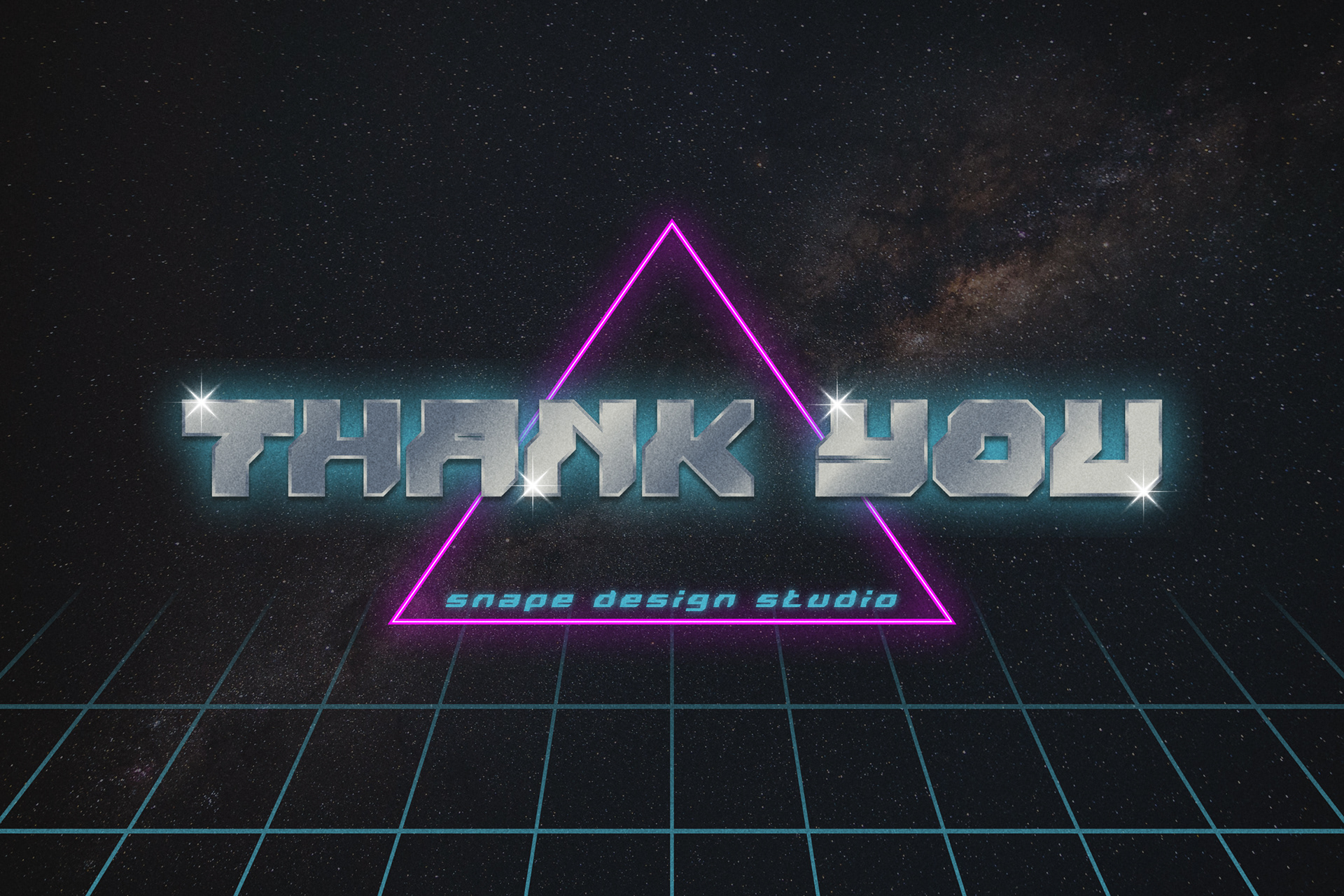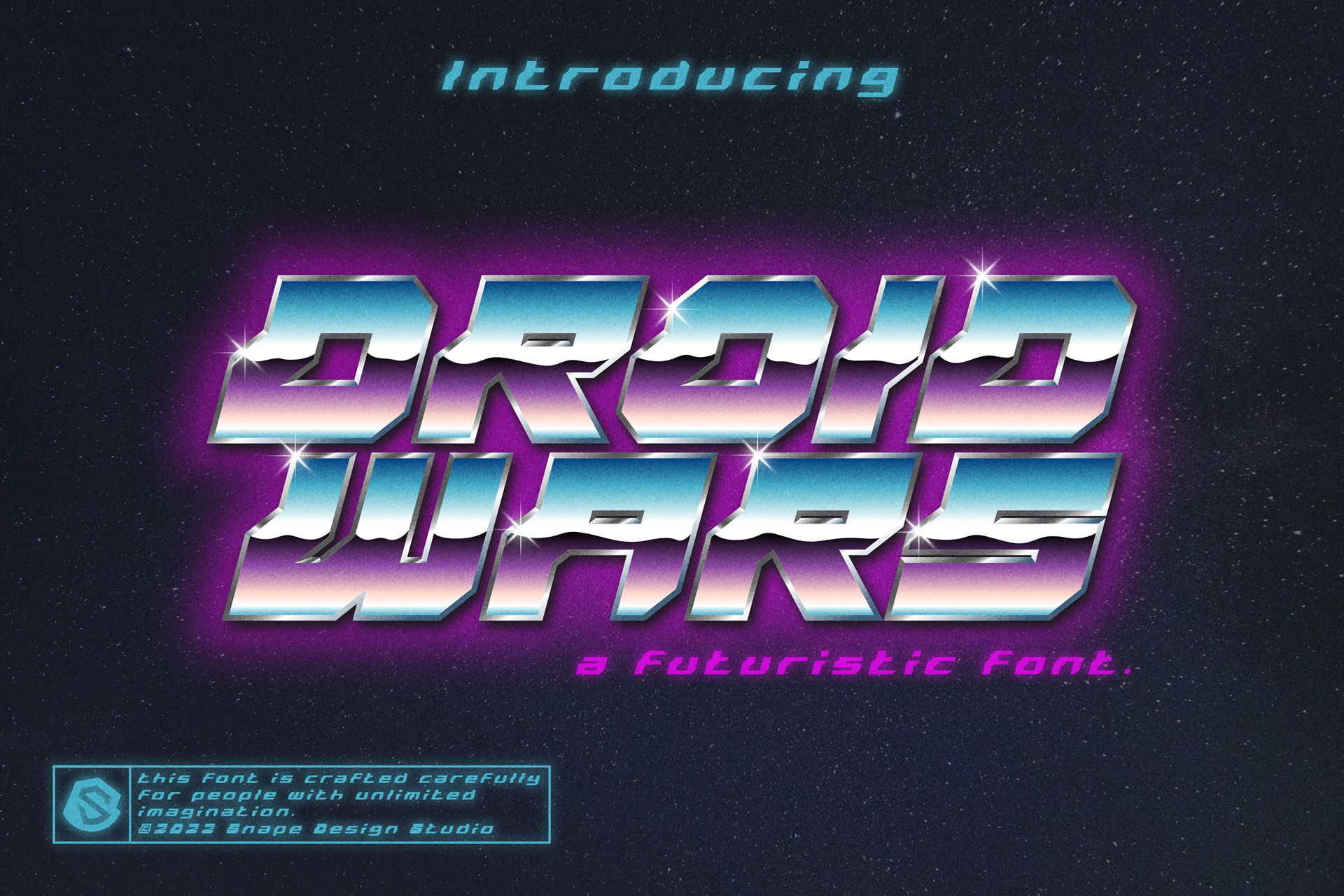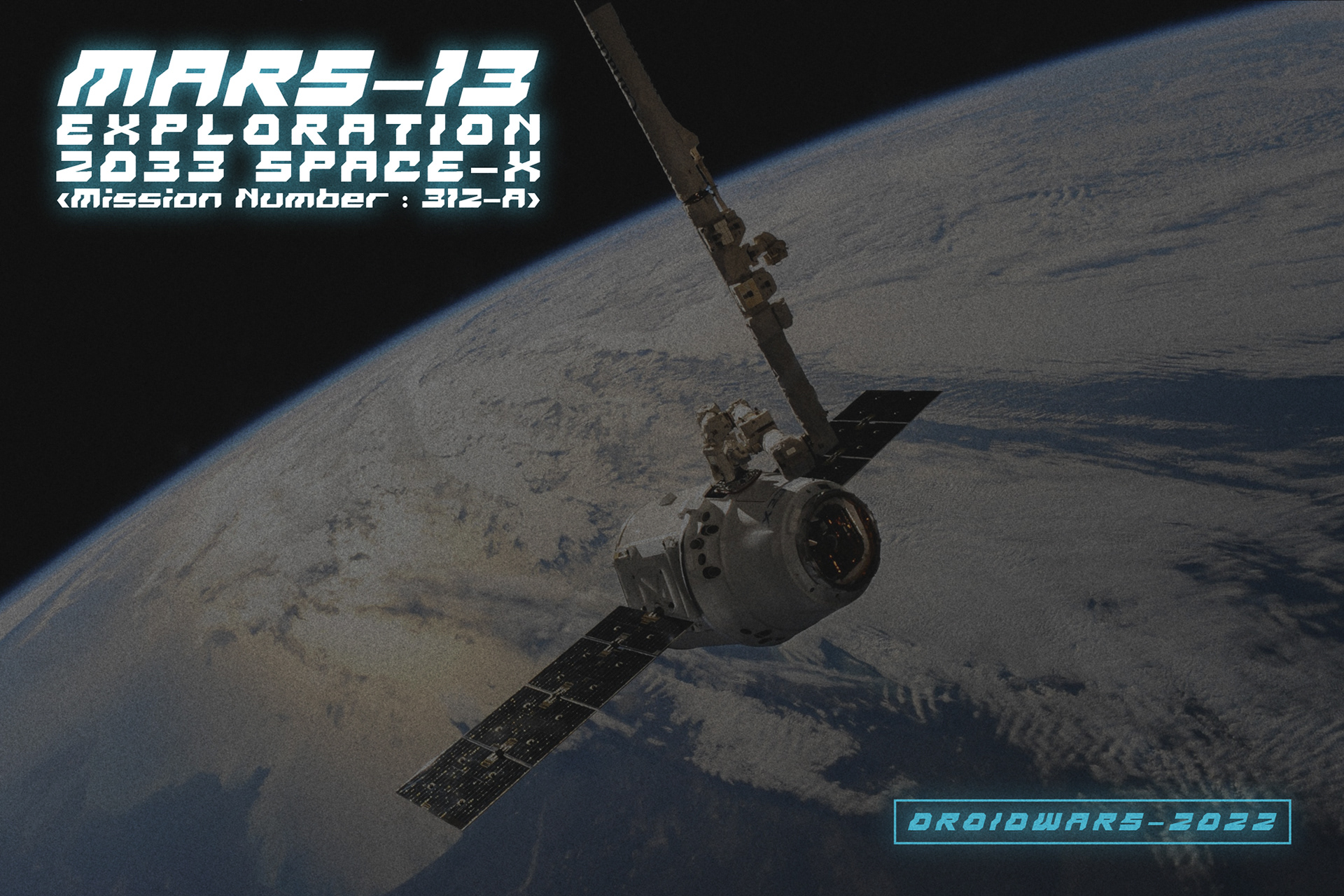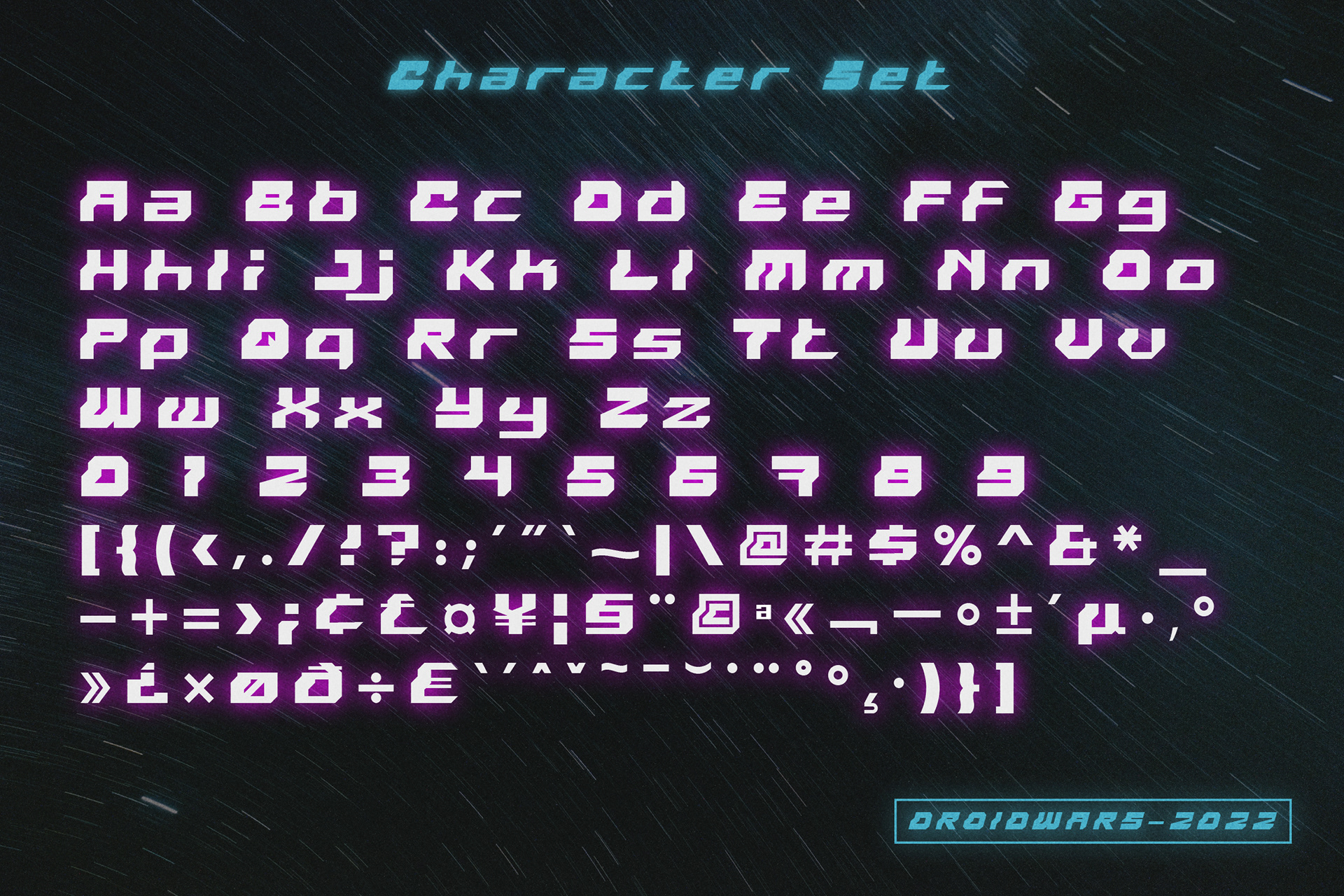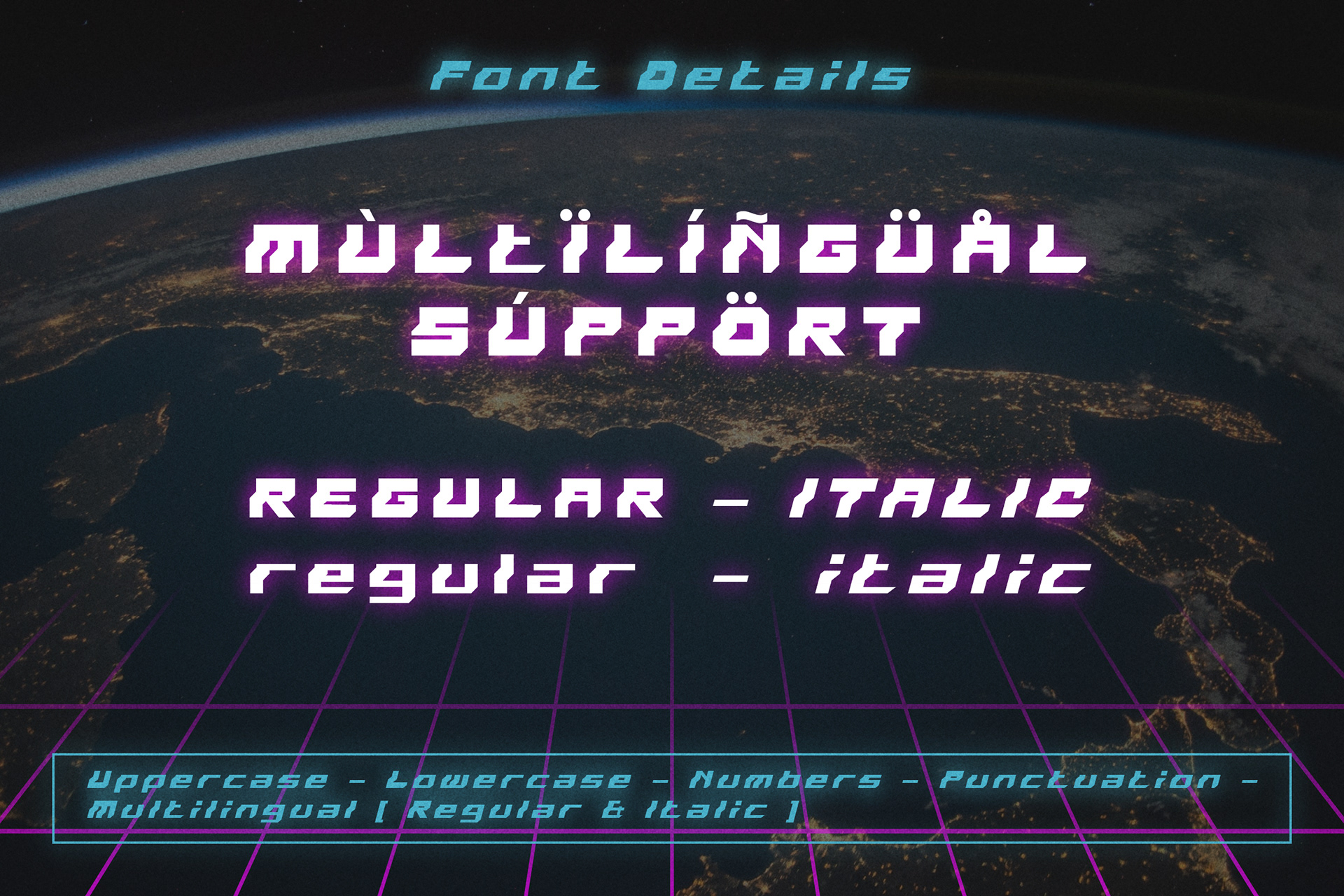
Droid Wars is a futuristic font. Droid Wars perfect for technology, digital, space galaxy theme. Also suitable for movie, documenter, film, logo, poster, game, book cover, headlines, title and many more projects. Add this font to your creative ideas and notice how it will make them stand out!
Droid Wars - Futuristic Display Font design by Ario Sabrang Damar publish under Snape Design Studio